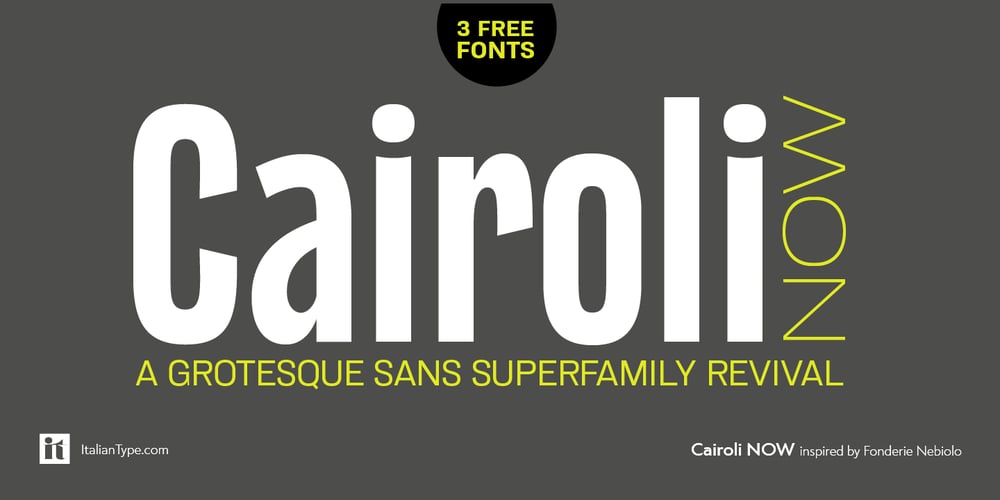
Cairoli Now Font Family was designed by Cosimo Lorenzo Pancini, Mario De Libero and published by Italiantype. Cairoli Now contains 44 styles and family package options. Cairoli was originally cast by Italian foundry Nebiolo in 1928, as a license of a design by Wagner & Schmidt, known as Neue moderne Grotesk. Its solid grotesque design (later developed as Aurora by Weber and Akzidenz-Grotesk by Haas) was extremely successful: it anticipated the versatility of sans serif superfamilies thanks to its range of weights and widths, while still retaining some eccentricities from end-of the century lead and wood type. In 2020 the Italiantype team directed by Cosimo Lorenzo Pancini and Mario De Libero decided to produce a revival of Cairoli, extending the original weight and width range and developing both a faithful Classic version and a Now variant. The Cairoli Classic family keeps the original low x-height range, very display-oriented, and normalizes the design while emphasizing the original peculiarities like the hook cuts in curved letters, the high-waisted uppercase R and the squared ovals of the letterforms. Cairoli Now is developed with an higher x-height, more suited for text and digital use, and adds to the original design deeper ink-traps and round punctuation, while slightly correcting the curves for a more contemporary look.Born as an exercise in subtlety and love for lost letterforms, Cairoli stands, like its lead ancestor from a century ago, at the crossroads between artsy craftsmanship and industrial needs. Its deviations from the norm are small enough to give it personality without affecting readability, and the expanded weight and width range make it into a workhorse superfamily with open type features (alternates, stylistic sets, positional numbers) and coverage of over two hundred languages using the latin extended alphabet.